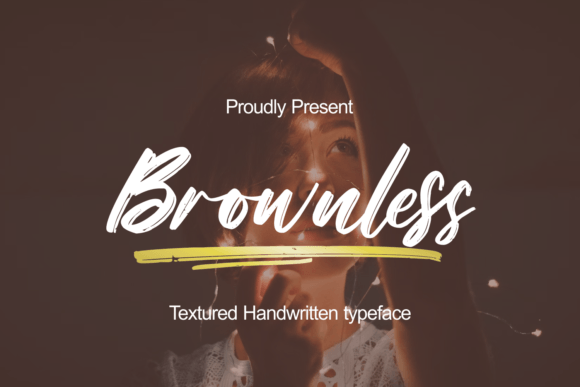
Unleash the Power of Brownless: A Script Font with Unparalleled Expressive Texture
Embark on a typographic adventure with Brownless, a modern script font that captures the raw energy of textured brush strokes. This distinctive font, meticulously crafted by zamjump, is a masterpiece that will elevate your designs to new heights.
Brownless is the perfect font for those who seek to make a bold statement. Its dynamic brush strokes create a visual texture that adds depth and character to your projects. Whether you're designing an eye-catching political poster, a captivating logo, or a social media post that demands attention, Brownless is the font that will make your words come alive.
With Brownless, your designs will radiate an air of authenticity and individuality. Its expressive nature adds a personal touch to your projects, making them stand out from the crowd. Embrace the beauty of imperfection and let Brownless bring a unique charm to your creative endeavors.
Discover the endless possibilities of Brownless:
- Ignite your imagination and create invitation designs that exude elegance and sophistication.
- Design logos that embody the essence of your brand, leaving a lasting impression on your audience.
- Craft badge designs that command attention with their bold and textured aesthetic.
- Create posters that captivate and inspire, delivering your message with undeniable impact.
- Elevate your packaging designs with a font that adds a touch of luxury and exclusivity.
- Design book cover titles that draw readers in, promising an unforgettable literary experience.
- Craft social media posts that resonate with your followers, sparking engagement and building a loyal community.
Brownless is not just a font; it's an artistic tool that will transform your creative vision into a tangible reality. Its versatility knows no bounds, making it suitable for a wide range of projects. Unleash your creativity and discover the endless possibilities that await you with Brownless.